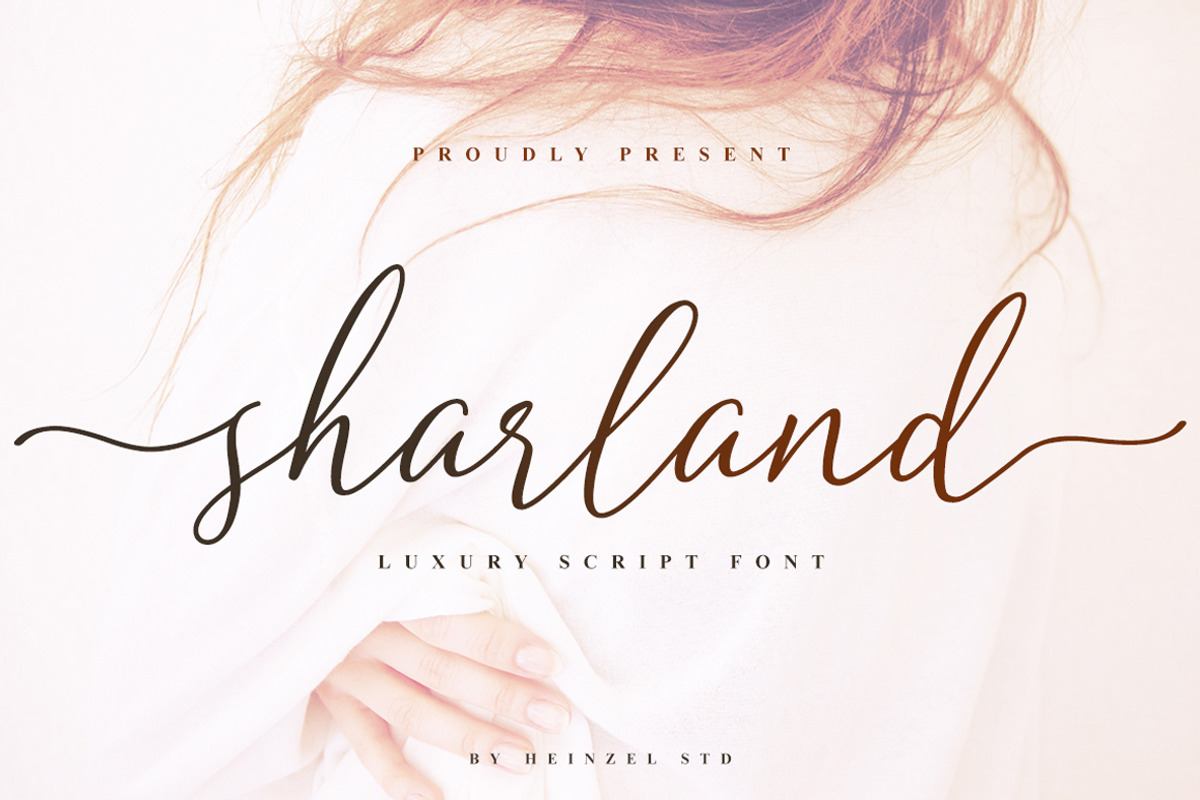
Sharland Luxury Script Font Free Download is an elegant and sophisticated handwritten typeface, designed to bring a touch of refinement and class to your projects. With its flowing curves, delicate swashes, and smooth calligraphic strokes, this font is perfect for wedding invitations, upscale branding, signature logos, packaging, and high-end editorial design.
Crafted for both beauty and readability, Sharland Luxury Script Font Free Download includes stylish ligatures and alternates that allow you to create custom, elegant typography with ease. It’s ideal for designs that need a luxurious, feminine, and timeless feel.